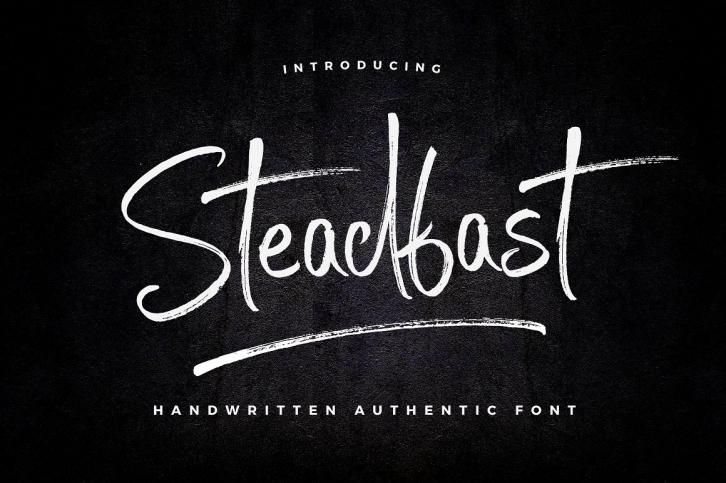
Steadfast Script is a trendy and unique font with an authentic style. It was designed by WornOutMedia and it's a great choice for creative people who need such a font. It was released on May 12, 2017 and the file size is 5.94 MB. Steadfast Script will add an organic vibe to any design idea!